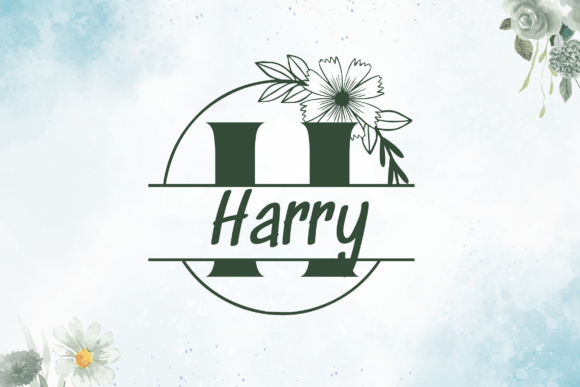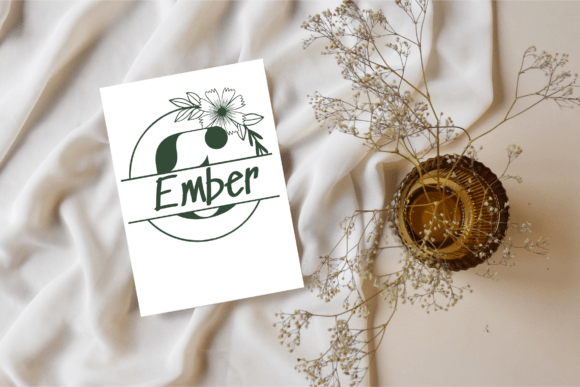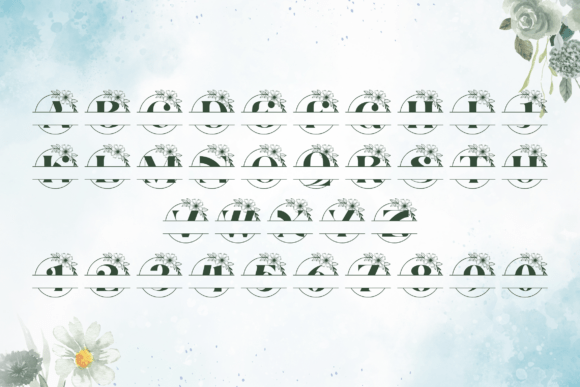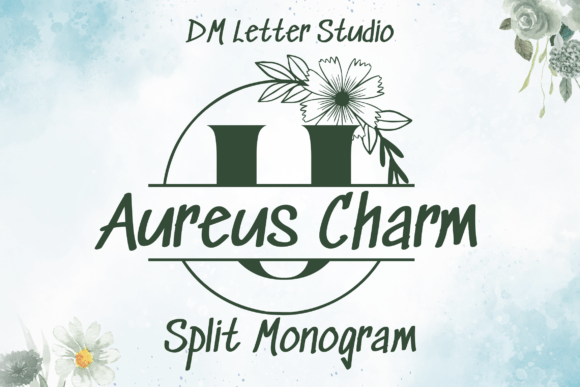
Aureus Charm Font: Elevate Your Designs with Timeless Elegance
Introducing Aureus Charm Split Monogram, a sophisticated serif font that embodies the perfect blend of classic refinement and modern personalization. This elegant typeface is specifically designed to create stunning split-letter monograms, ideal for a wide range of applications, from wedding decor and custom nameplates to upscale gifts and branding.
The Essence of Aureus Charm
Aureus Charm Split Monogram boasts a classic uppercase structure, characterized by elegant serif shapes, clean lines, and a symmetrical design. The font’s foundation is rooted in traditional typography, ensuring a timeless sophistication that will never go out of style. What sets it apart, however, is its unique split monogram design, where stylish capital letters are divided by a center band, allowing for effortless personalization.
Key Features of Aureus Charm
• Split Monogram Design: The font features a stylish split design, where capital letters are separated by a center band, perfect for incorporating names or initials.
• Classic Serif Foundation: Aureus Charm is built on a classic serif foundation, characterized by elegant shapes, clean lines, and a symmetrical structure that exudes refinement.
• Personalization Ready: The font is designed with personalization in mind, making it ideal for custom engraving, family name signs, gifts, logos, and more.
Ideal Applications for Aureus Charm
Aureus Charm Split Monogram is incredibly versatile, making it suitable for a variety of projects that require a touch of elegance and sophistication. Some ideal applications include:
• Wedding Signage: Create breathtaking wedding signs, monograms, and stationery that will leave a lasting impression on your guests.
• Monogram Gifts: Add a personal touch to gifts, such as engraved jewelry, home decor, and personalized items.
• Branding and Initials: Use Aureus Charm to create distinctive logos, business cards, and letterheads that showcase your brand’s elegance and sophistication.
• Personalized Items: Design beautiful personalized items, including home decor, stationery, and gifts, that make thoughtful presents or treasured possessions.
Why Choose Aureus Charm?
In a world where personalization is key, Aureus Charm Split Monogram offers the perfect solution for designers and crafters looking to create memorable typographic moments. By combining classic serif elegance with modern split-letter designs, this font provides:
• Timeless Sophistication: Aureus Charm’s classic foundation ensures that your designs will remain stylish and relevant for years to come.
• Effortless Personalization: The font’s split monogram design makes it easy to incorporate names, initials, or custom text, adding a personal touch to your projects.
• Versatility: Aureus Charm is suitable for a wide range of applications, from digital designs to print materials, making it an excellent addition to your font library.
Aureus Charm Split Monogram is a refined and regal serif font that offers the perfect blend of classic elegance and modern personalization. With its unique split-letter design, classic serif foundation, and versatility, this font is an excellent choice for designers and crafters looking to create stunning typographic moments. Whether you’re working on wedding decor, custom nameplates, branding, or upscale gifts, Aureus Charm is sure to elevate your designs and leave a lasting impression.